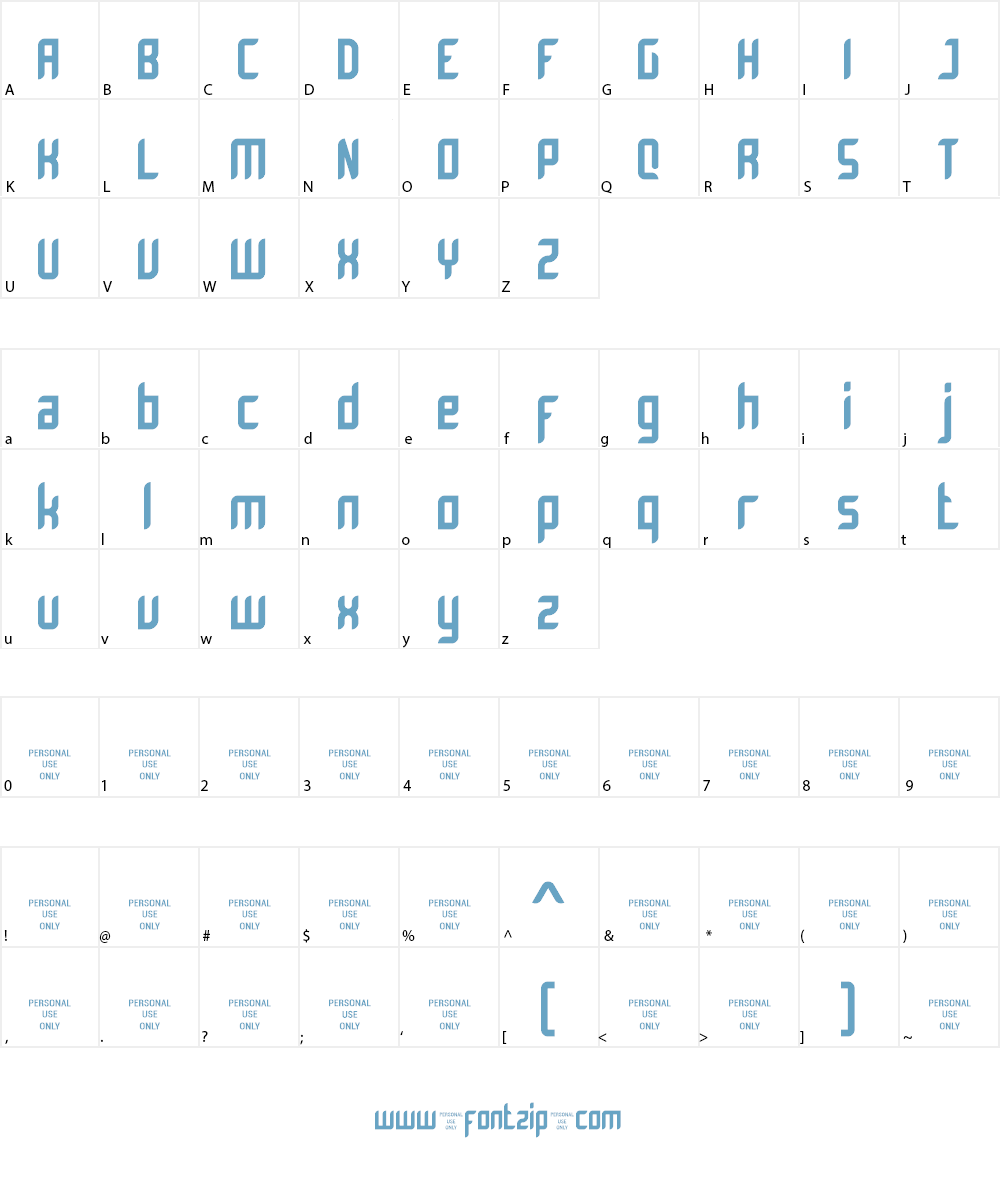
Bromount is a gorgeous and simple sans serif font, perfect for use in a wide range of creative projects. This font excels as a display or headline to your work, and can add a streamlined and sleek feel in any design.
Bold, Strong, Stand Out, Masculine. Powerful for Travel or Adventure design concept.